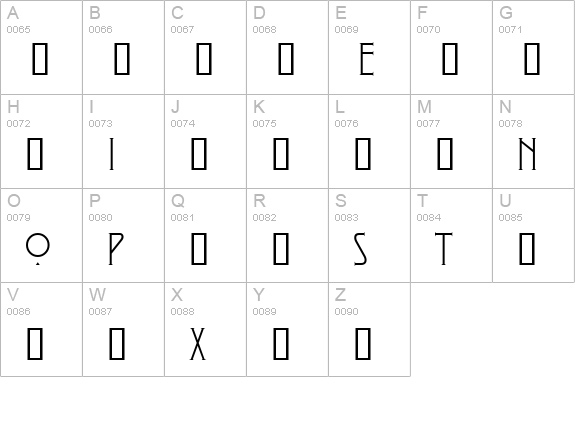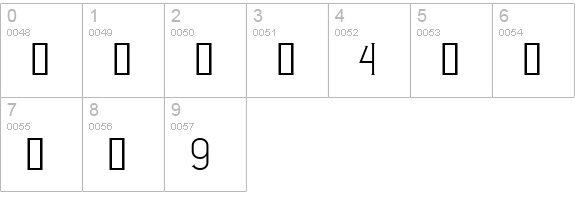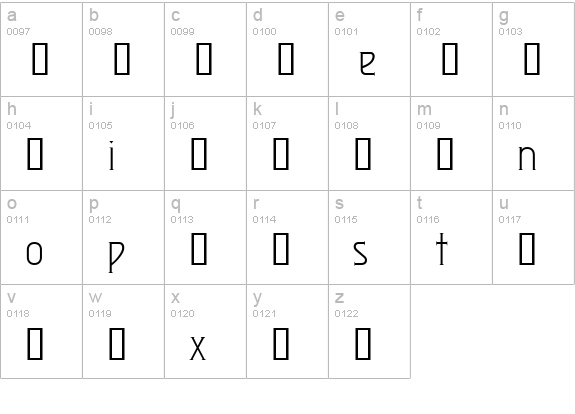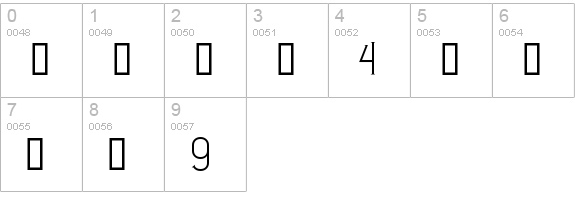
Exposition Sampler font is a charming and versatile typeface that exudes elegance and sophistication. With its unique blend of classic and modern elements, this font is perfect for a wide range of design projects, from invitations to branding to editorial layouts. One of the best features of Exposition Sampler font is that it is completely free to download. You can easily access this beautiful font at FontsMarket.com, where you can explore its full range of characters and styles. Whether you're a seasoned designer looking to add a fresh touch to your work or a newcomer seeking a stylish font for your projects, Exposition Sampler font is sure to impress with its timeless appeal and high-quality design. Enhance your creative projects with the exquisite beauty of Exposition Sampler font, now available for free download at FontsMarket.com.